Oracle Font has always impressed me because of how bold and confident it looks. Every time I see the company’s branding, I realize how much the Oracle logo font contributes to its reputation as a global leader in enterprise technology. In my opinion, the typeface reflects power, professionalism, and authority—qualities that align perfectly with Oracle’s brand identity.
Oracle Font
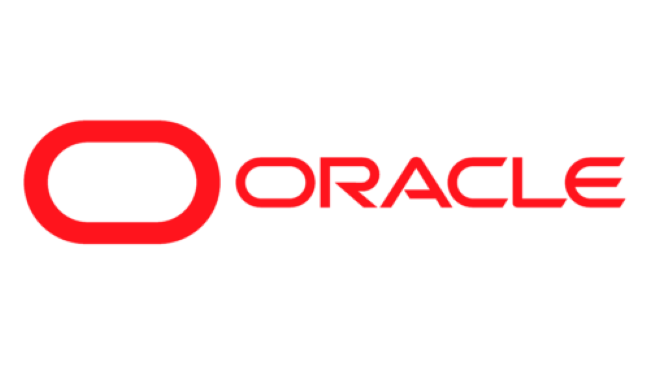
The Oracle logo font is based on a customized version of Helvetica Neue, a widely respected sans-serif typeface. I think this was the right choice because it emphasizes clarity, structure, and modernity, which match Oracle’s focus on innovation and large-scale business solutions. From my analysis, the Oracle logo font looks strong across digital platforms, corporate materials, and product branding, maintaining consistency worldwide.
Compared to other enterprise tech companies, Oracle Font feels more commanding and direct. I believe that’s why it resonates so well with its corporate audience. To me, Oracle Font proves that a carefully chosen logo font can embody the scale and strength of a global technology powerhouse.